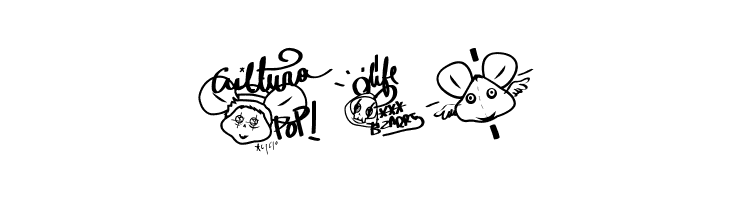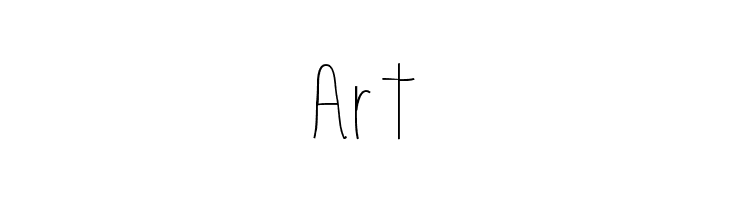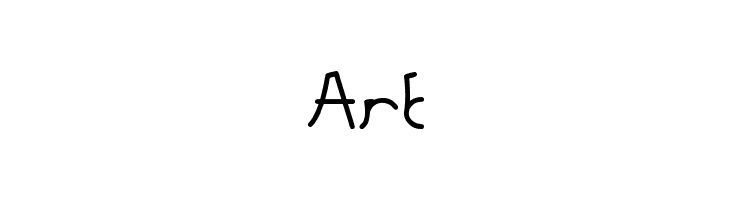
A whimsical and artistic font with playful, doodle-like characters.
A playful, handwritten font with thin, elongated strokes and a whimsical style.
A whimsical handwritten font with decorative swirls and curls.
A whimsical, curly serif font with a playful, hand-drawn style.
A playful, casual handwritten font with smooth, flowing lines.
A playful and eclectic font with exaggerated, dynamic characters.
A playful serif font with a hand-drawn, whimsical style.